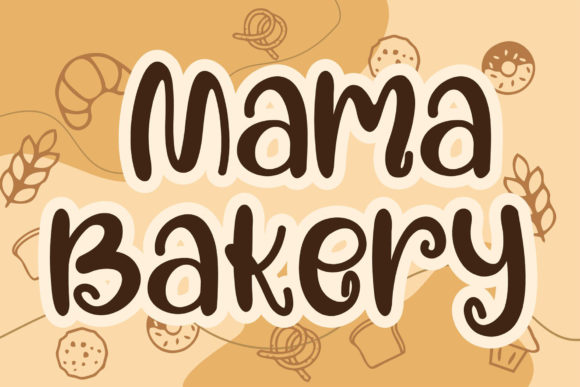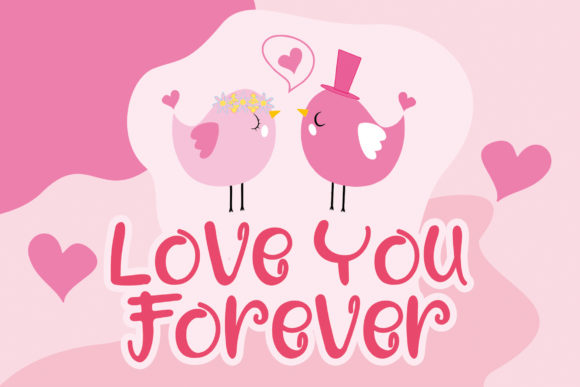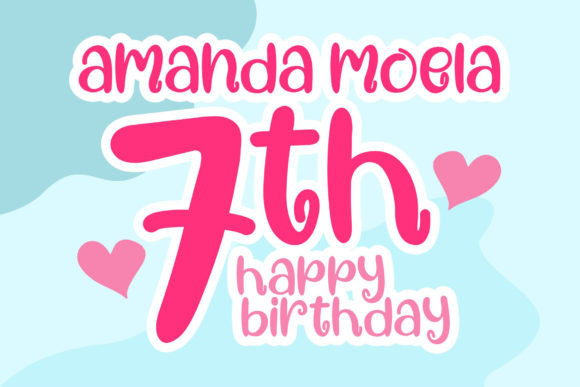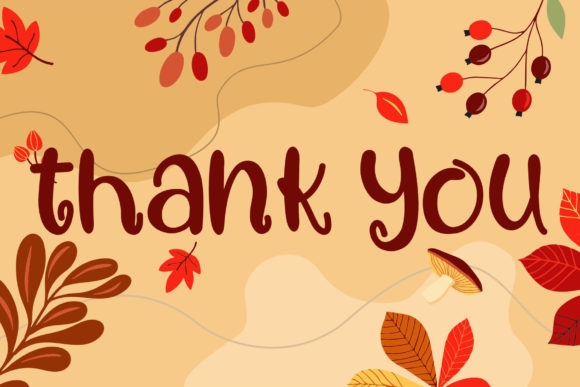
The Ultimate Design Game-Changer: Hermine Font
I’ll never forget the time I was working on a wedding invitation project, and my client asked for a font that was both playful and elegant. I scoured the internet, tried countless fonts, but nothing seemed quite right. That was until I stumbled upon Hermine Font. This fun display font has been a game-changer for my design projects, and I’m excited to share its awesomeness with you! 😊
An Honest Review of Hermine Font
- ✨ Unique and eye-catching design with cute elements
- ✅ Perfect for display purposes, such as headings, titles, and logos
- 💥 Highly versatile and can be used for various design projects, including branding, wedding designs, invitations, and more
- 🎉 Easy to read and understand, even in smaller sizes
While Hermine Font is an amazing addition to any design project, there are a few things to keep in mind:
- ⚠️ May not be suitable for body text or lengthy paragraphs due to its display nature
- 🤔 Limited availability of certain characters or glyphs, but we’ll get to that later
One of the exciting features of Hermine Font is its support for OpenType features and glyphs. These can add an extra layer of creativity to your designs. To access these features:
The Backstory of Hermine Font
The story behind Hermine Font is one of creativity and passion. Designed with the intention of creating a unique and eye-catching display font, Hermine Font has become a favorite among designers and crafters. The designer aimed to create a font that would add a touch of personality to any design project, and it’s clear that they’ve succeeded.
Q: What type of designs is Hermine Font best suited for?
A: Hermine Font is perfect for display purposes, such as headings, titles, logos, and other design projects that require a unique and eye-catching font.